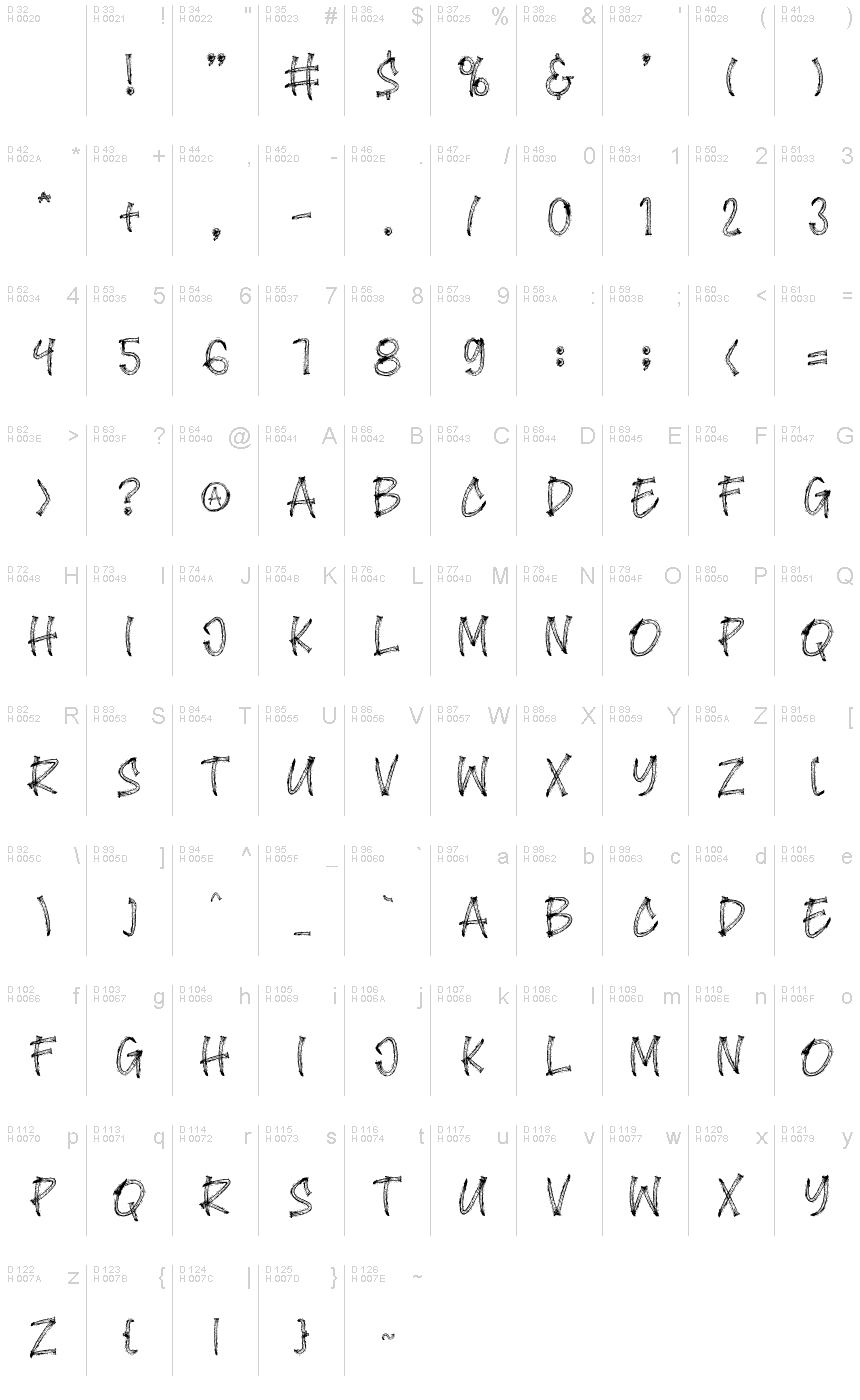
Youth Today
Youth Today is a light brush font designed by Stefie Justprince, perfect for projects requiring a modern and dynamic touch. It can be used to create eye-catching logos, posters, social media content, packaging designs, and more.